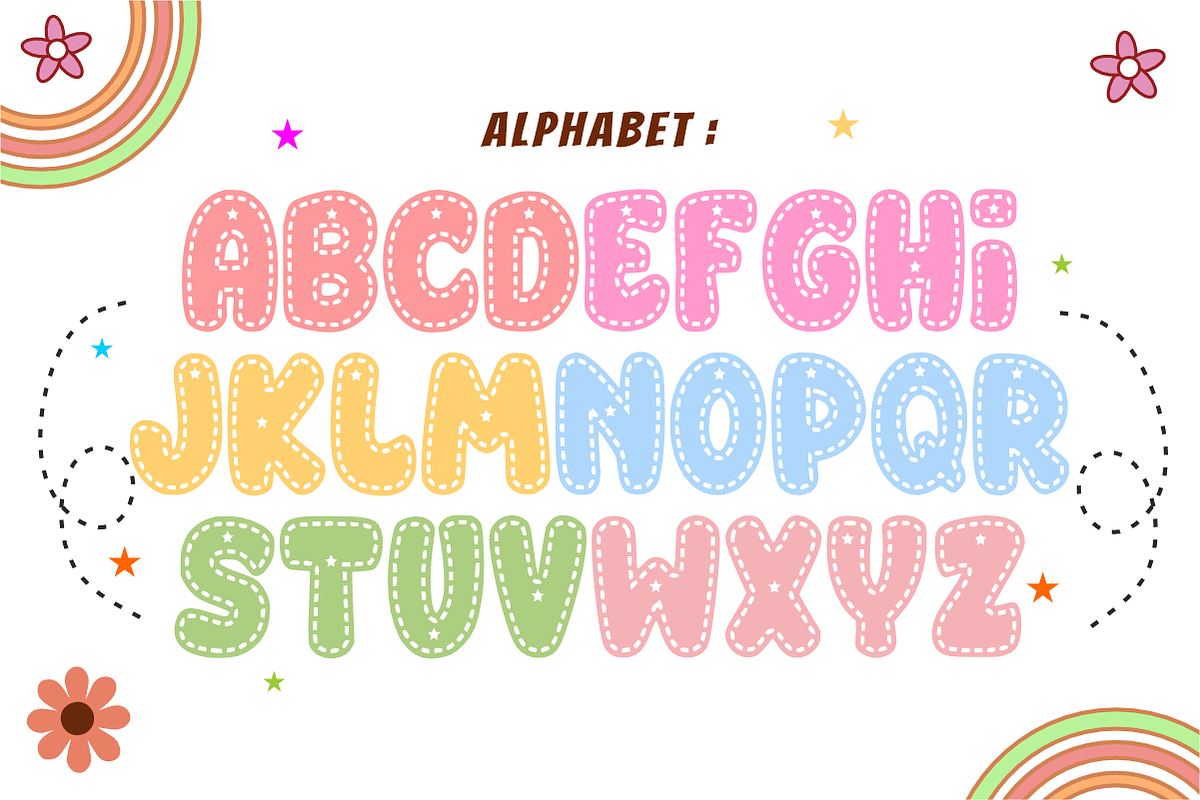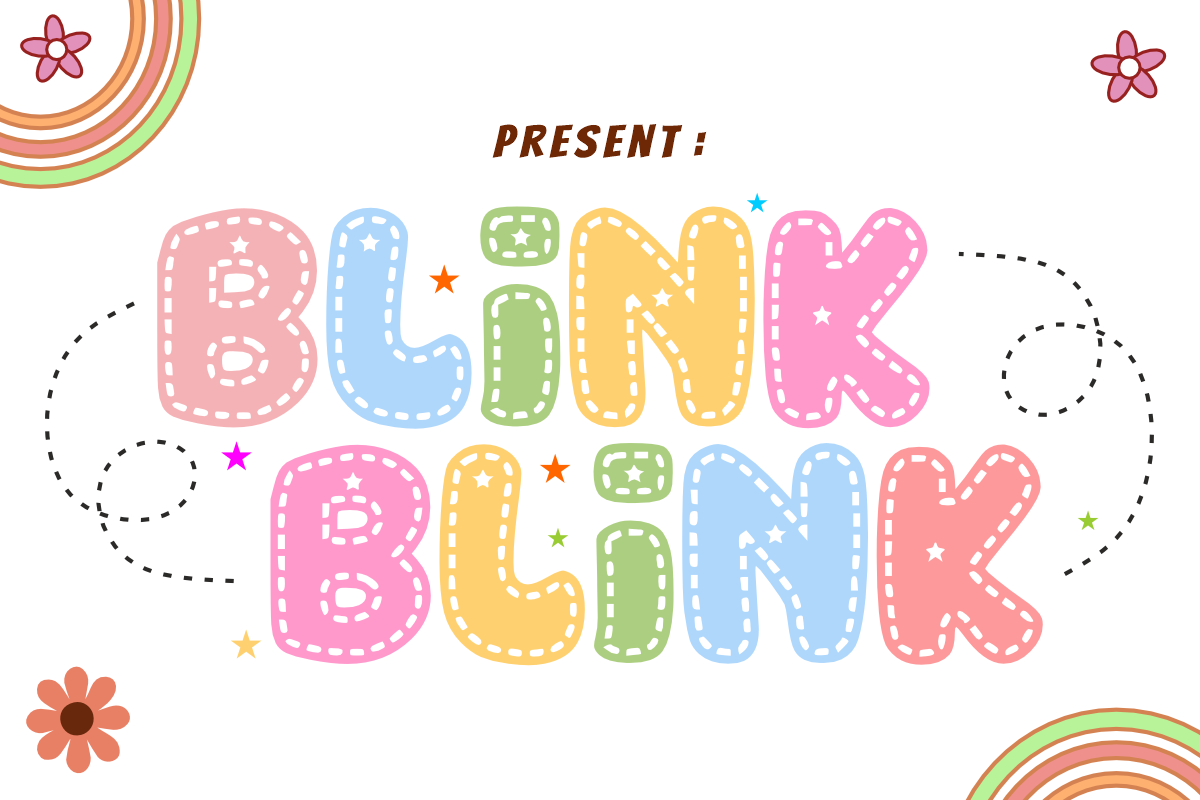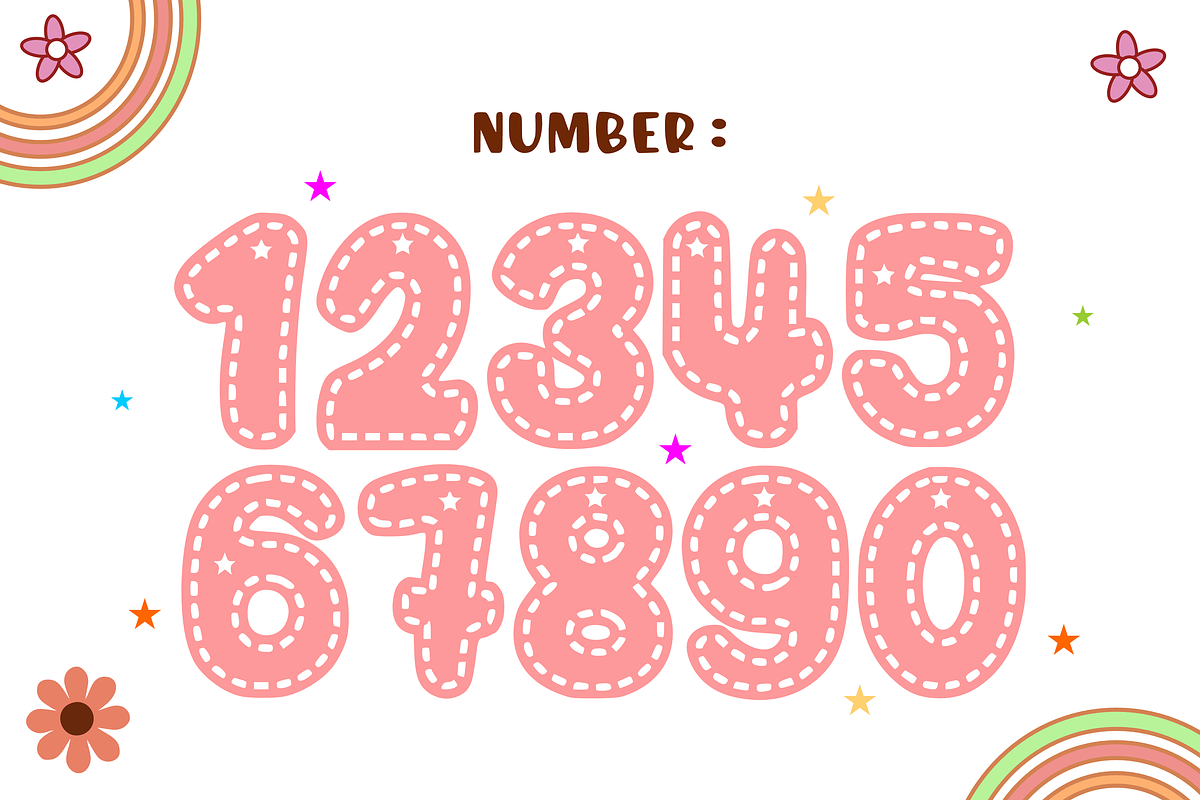
Blink Blink - Kids Font Types
Blink Blink is a playful and colorful decorative font that features stitched outlines and whimsical star cutouts. Perfect for children’s books, birthday invitations, educational materials, and fun branding, this font brings cheerful energy and soft, handmade charm to your designs.